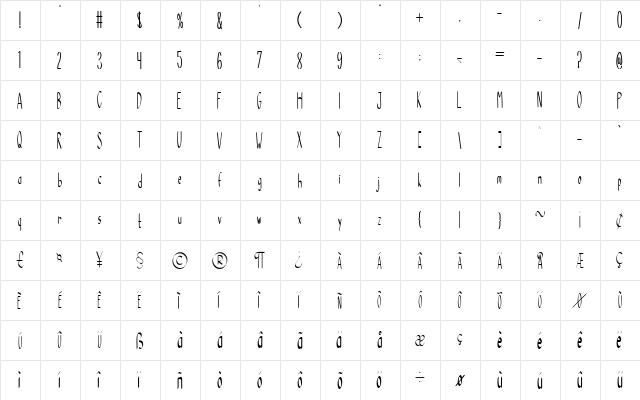
Be Natural Regular Font Preview
Be Natural Regular
Be Natural Regular Font Details
Design Context for Be Natural Typeface
Be Natural offers clean, dependable letterforms without strong stylistic allegiance, making it a practical choice for designers who need flexibility.